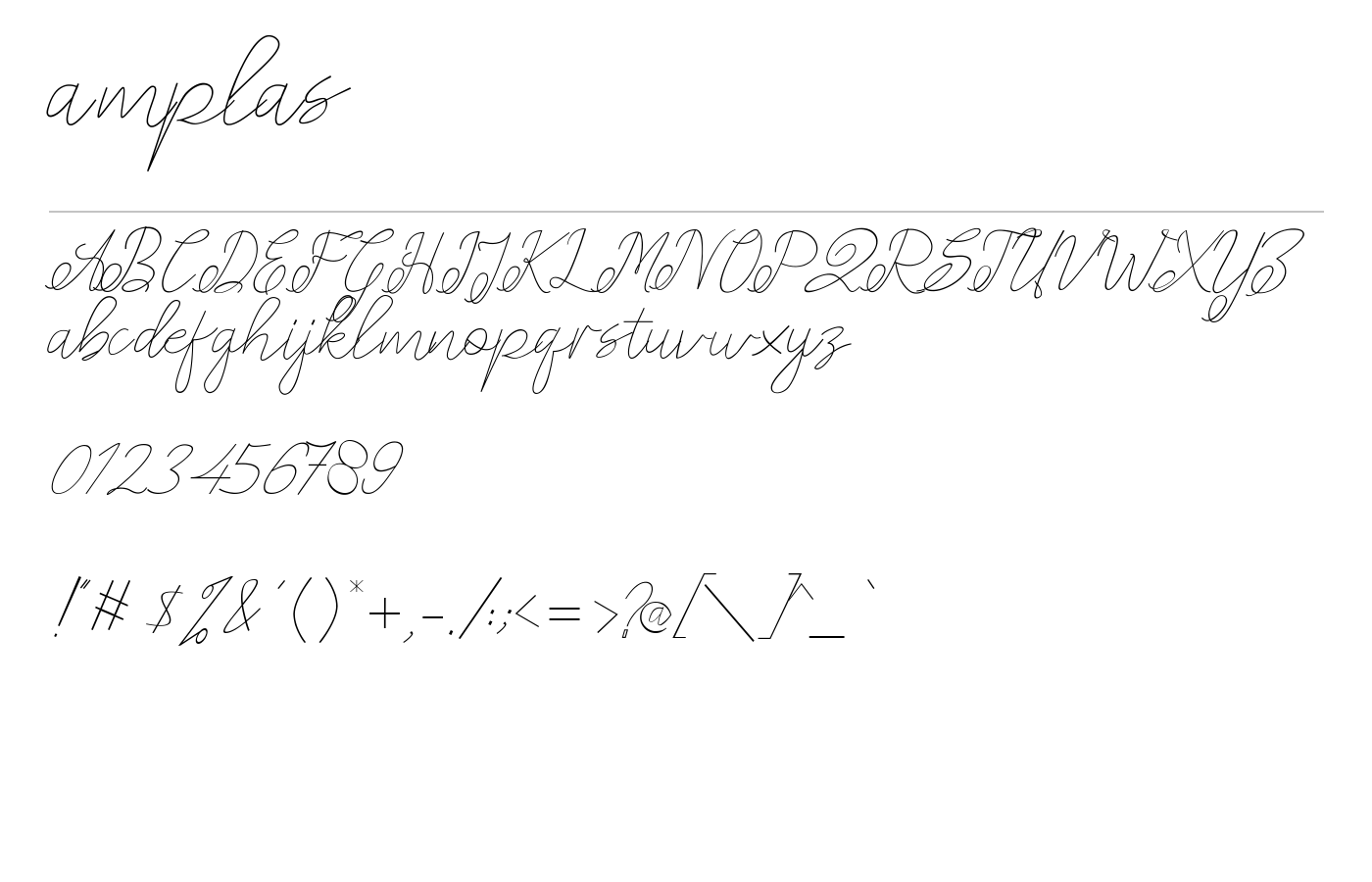
Amplas is a delicate, elegant script font with a light weight and graceful, flowing strokes that mimic natural handwriting. Its slender, slightly condensed letterforms with smooth curves and loops offer a refined, artistic feel, making it perfect for sophisticated branding, invitations, and feminine design projects. This font’s airy, stylish appearance works wonderfully in contexts where a personal, handwritten touch is desired, especially in logos, social media, and editorial headlines.
amplas Font
About amplas Font